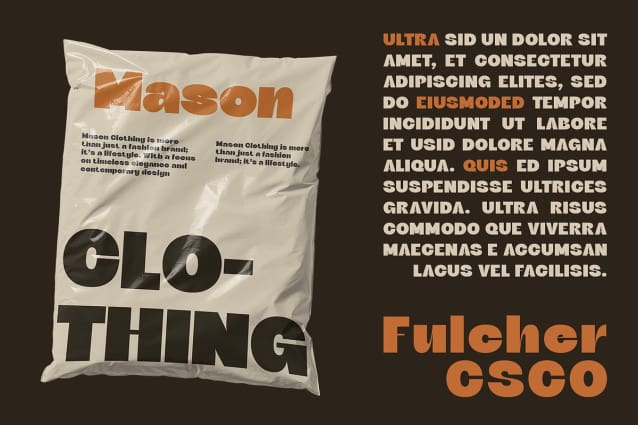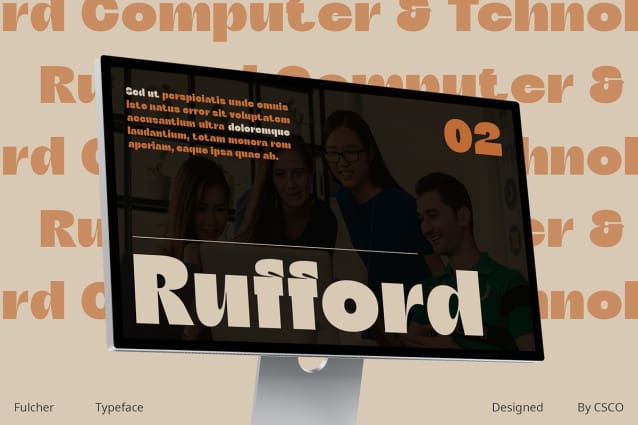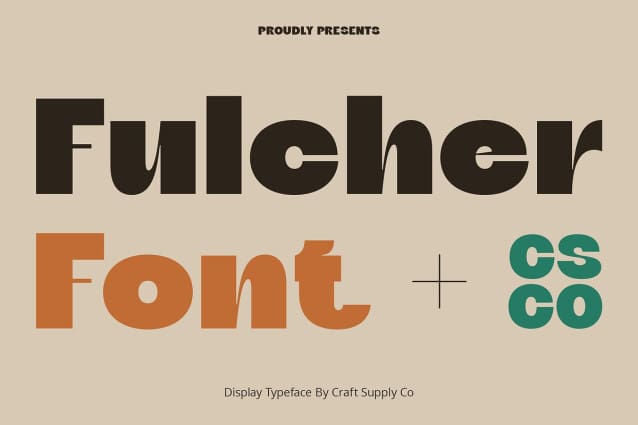
Fulcher Font
Fulcher Font is a bold sans-serif font that seamlessly blends a funky style with professional appeal. Its striking presence makes it ideal for corporate settings, ensuring your designs capture attention and convey confidence.
Designed with corporate and professional settings in mind, Fulcher offers a bold look that stands out. Its clean, strong lines make it suitable for everything from company logos to business presentations, enhancing the impact of your message.
Fulcher’s bold and funky style provides versatility for various design applications. Use it in marketing materials, advertisements, and promotional content to create a memorable and eye-catching presence.
Elevate your brand identity with Fulcher’s bold sans-serif design. The font’s unique blend of professionalism and funkiness ensures your brand stands out, leaving a lasting impression on your audience.
Despite its bold and funky style, Fulcher Display remains highly readable, making it perfect for both digital and print media. Its clear and precise letterforms ensure that your text is always easy to read, no matter the context.